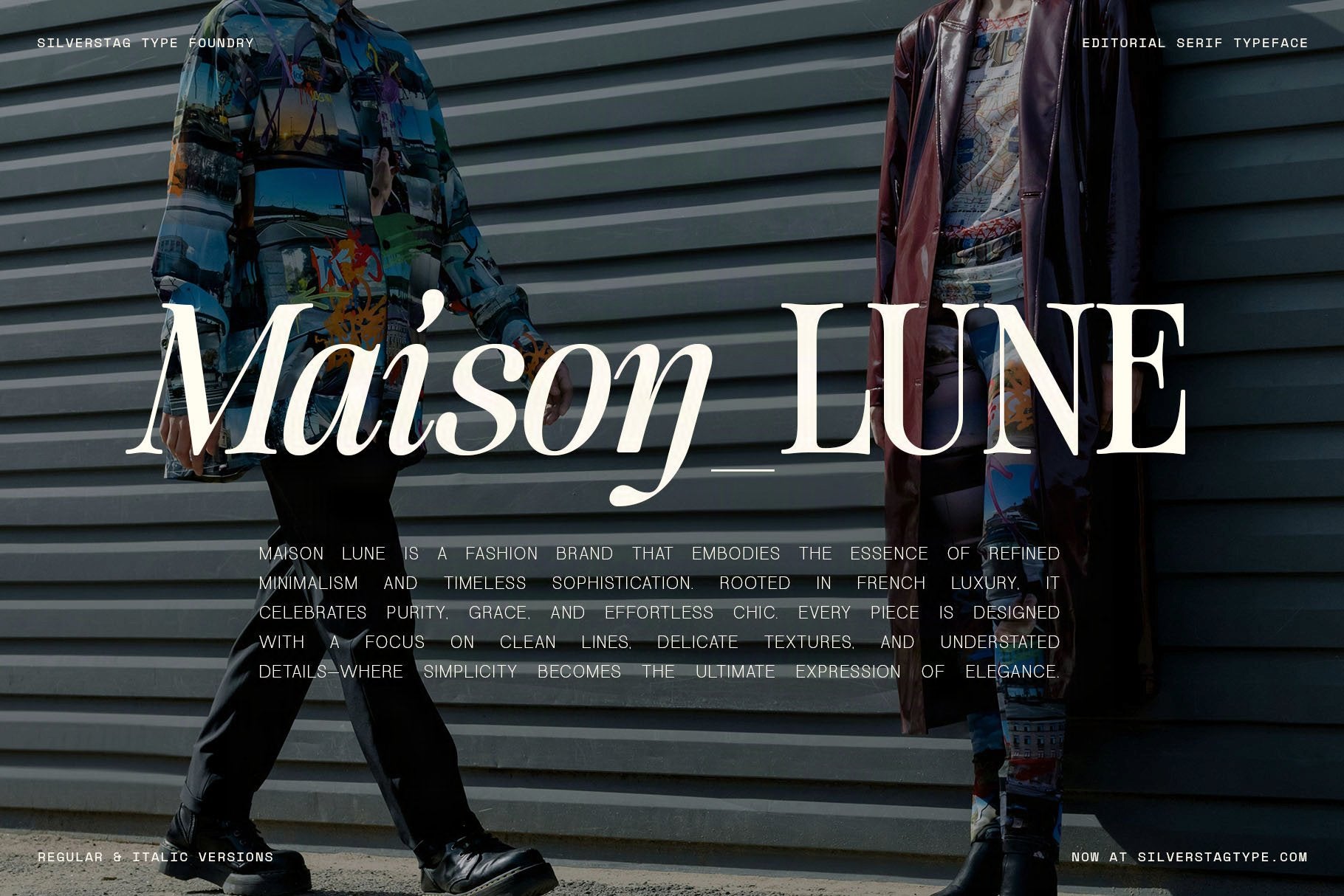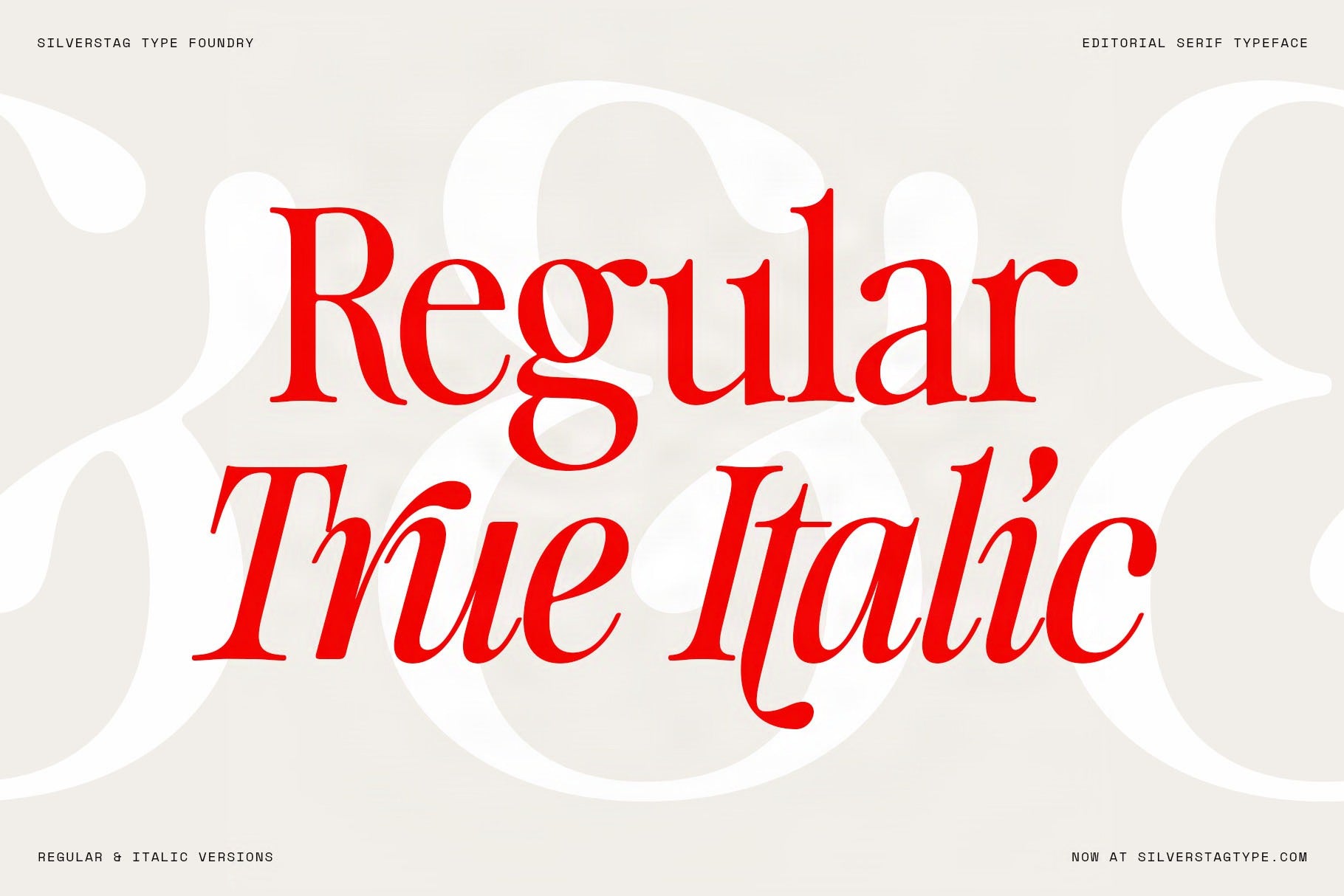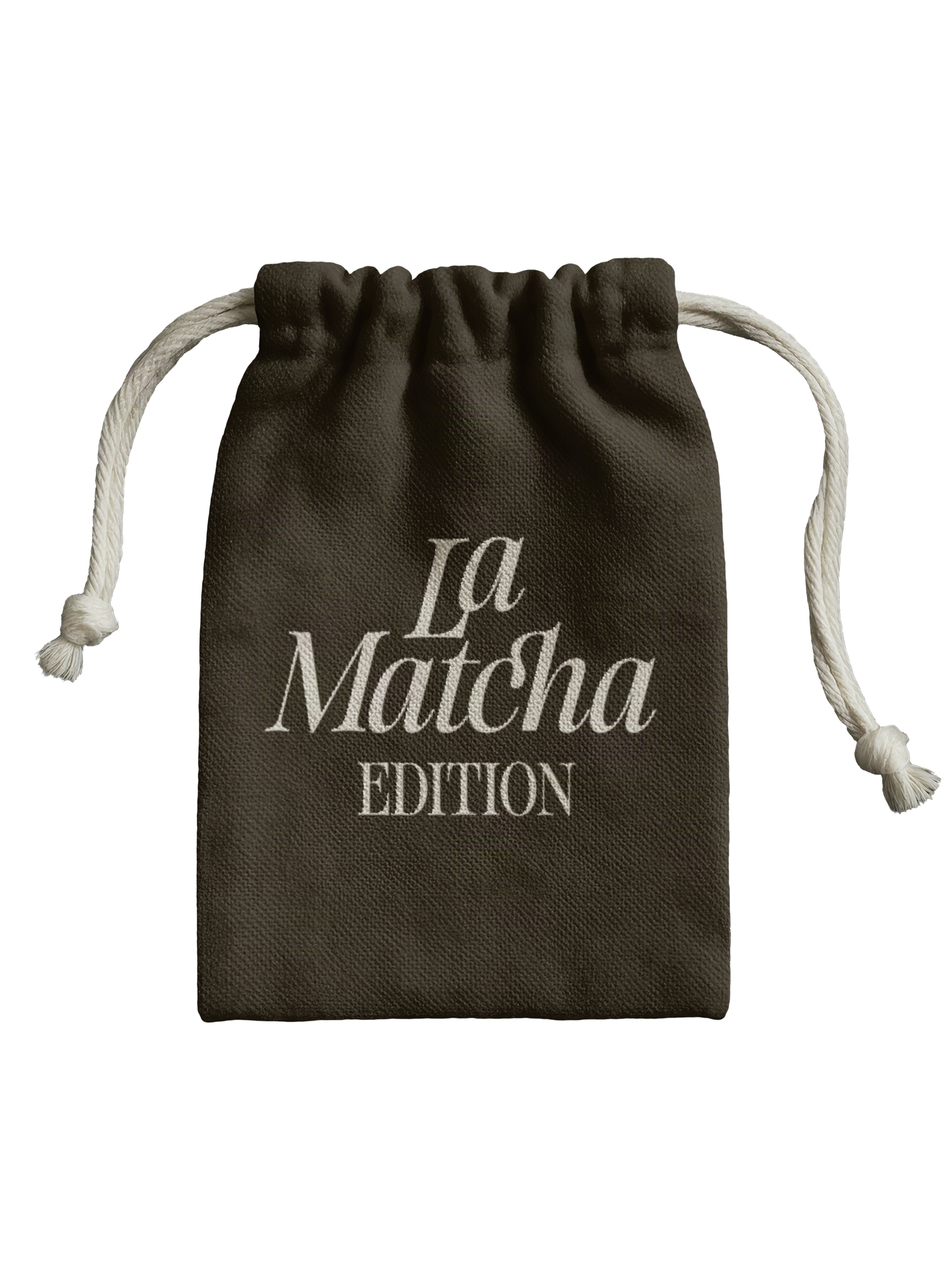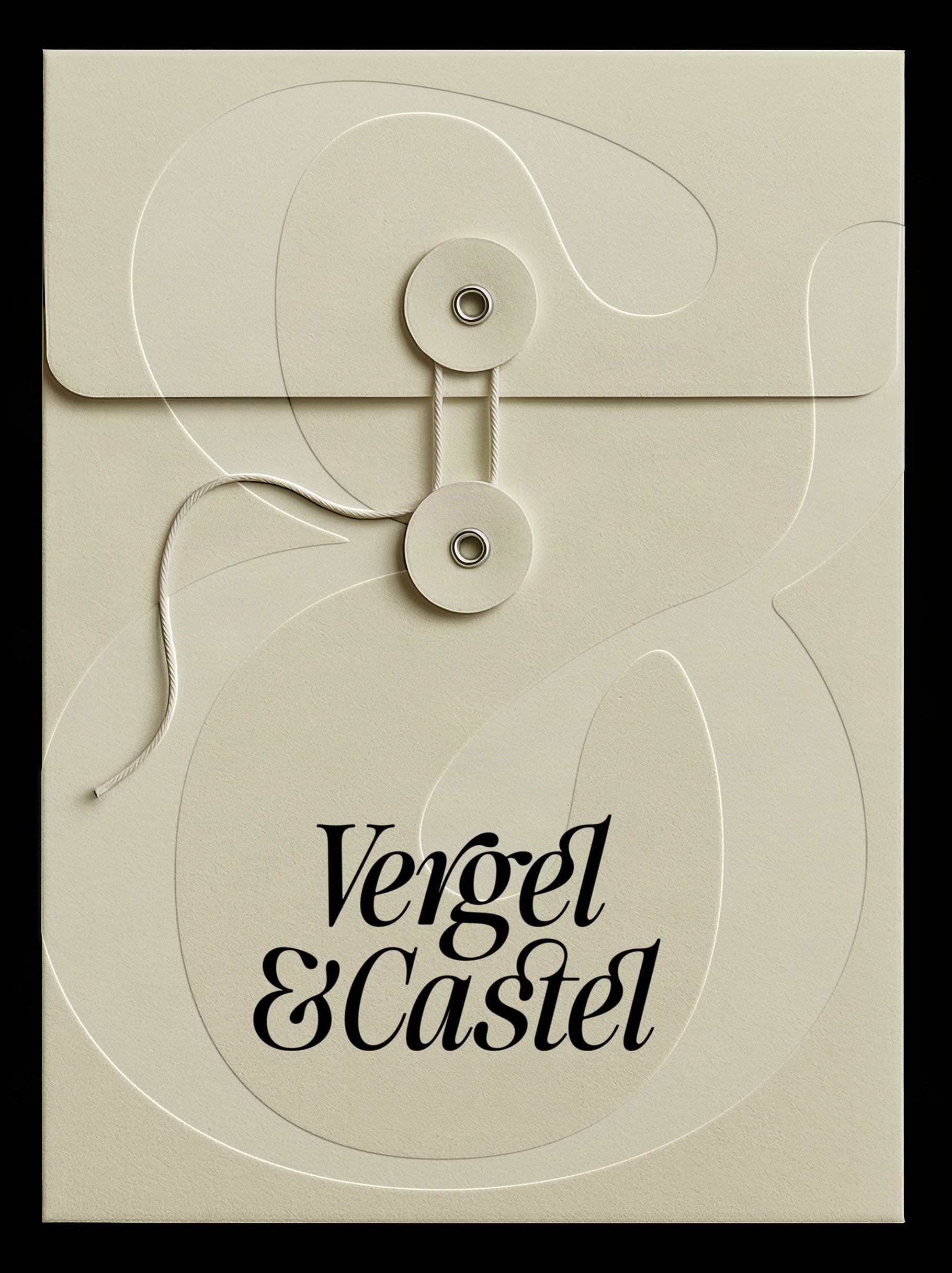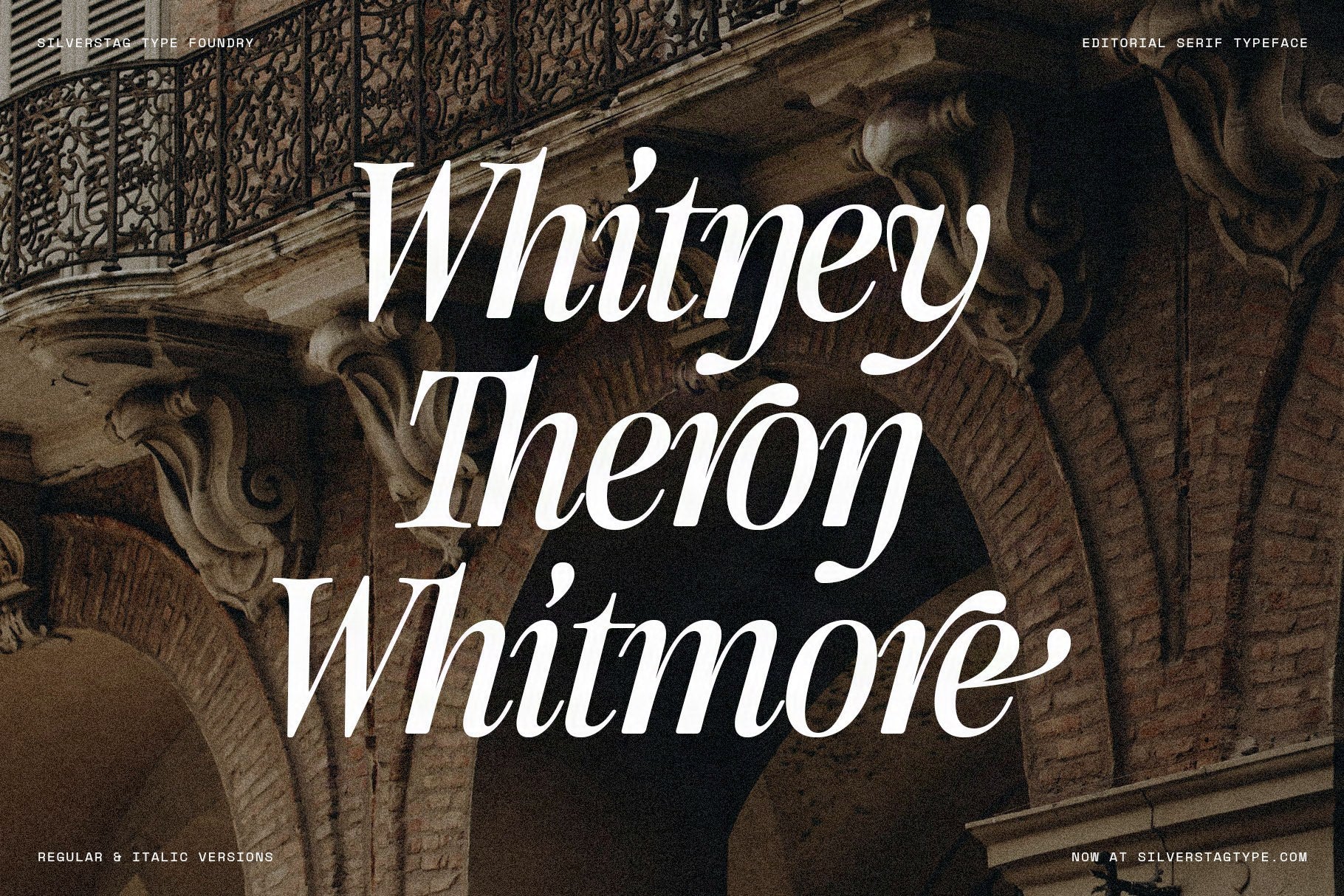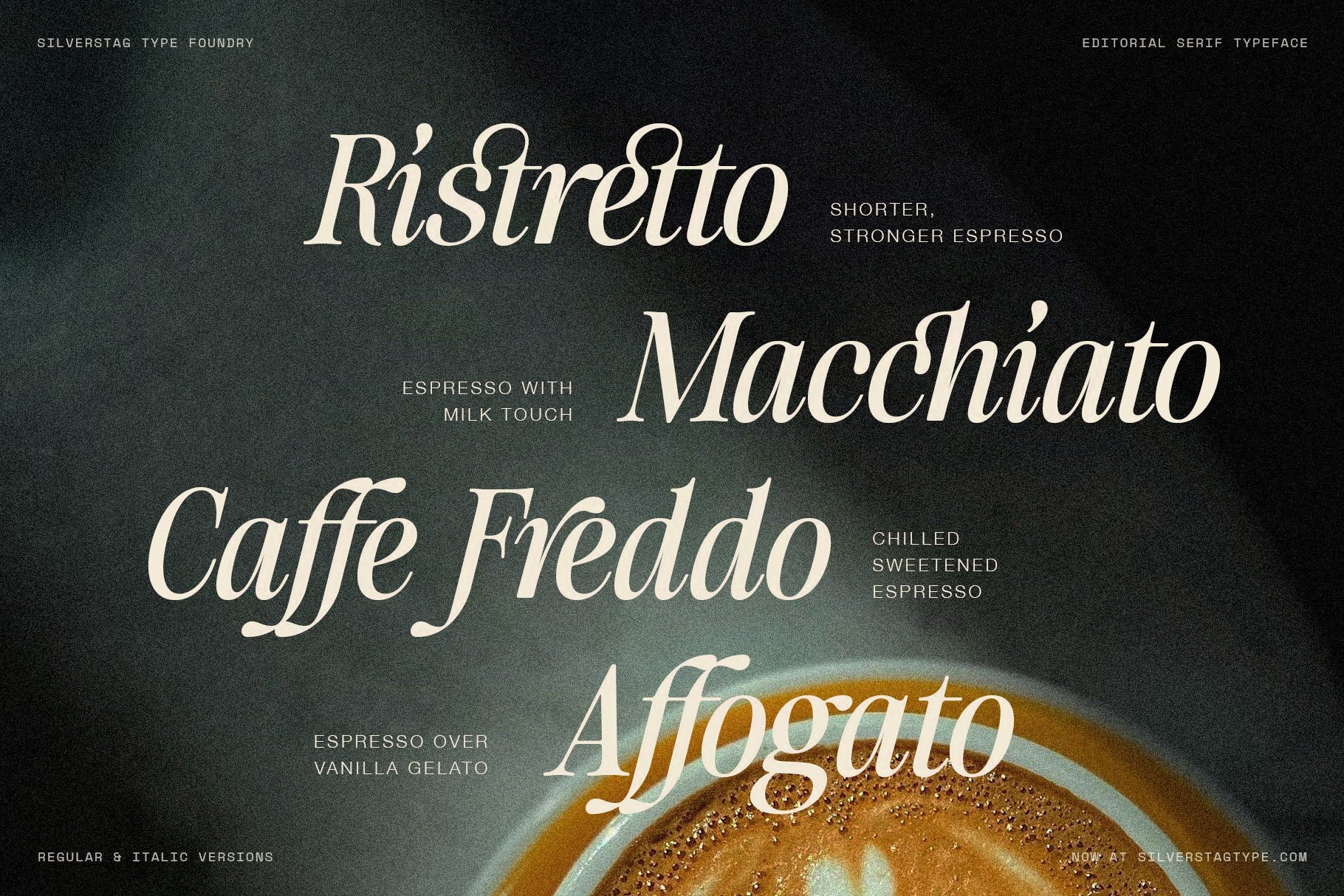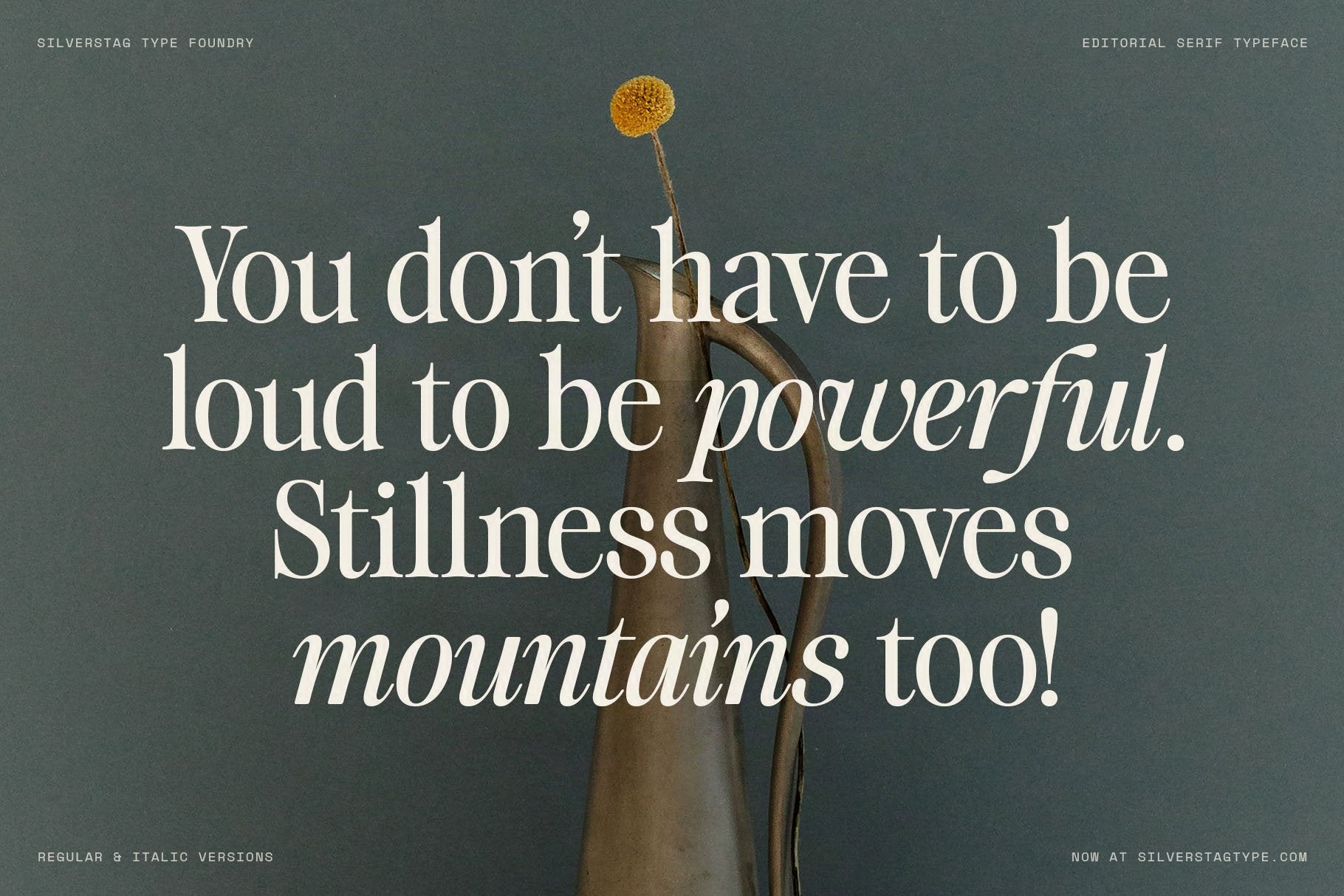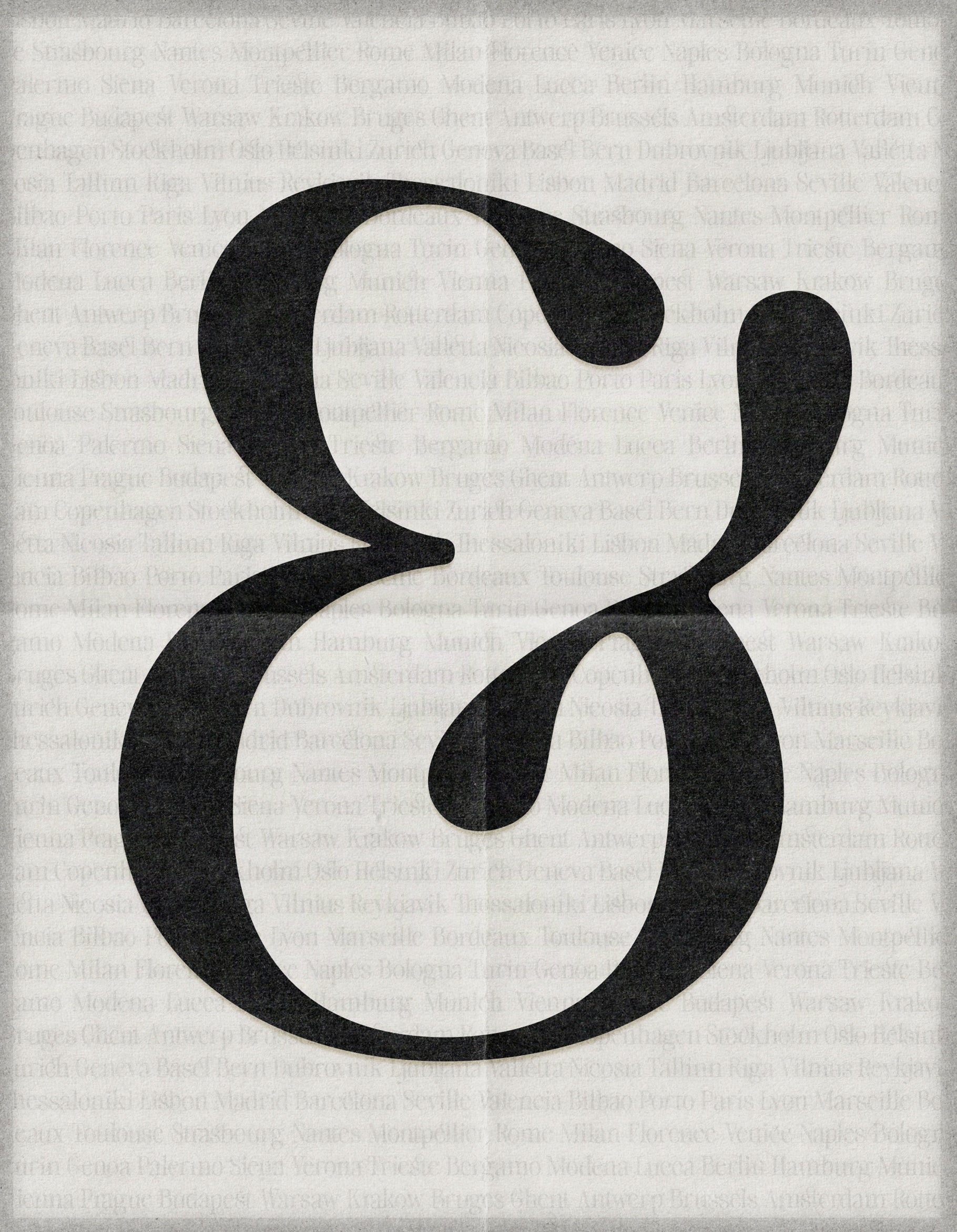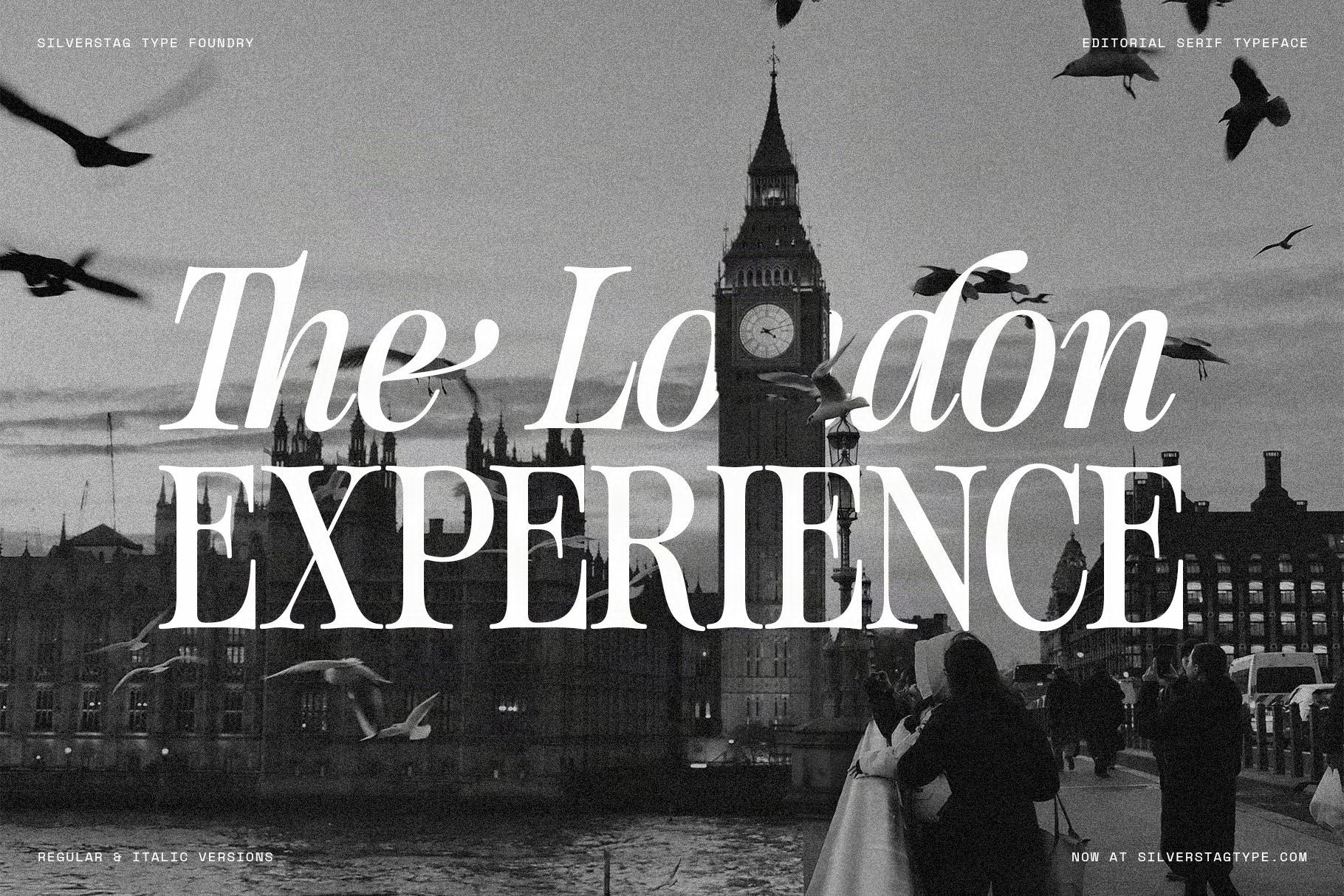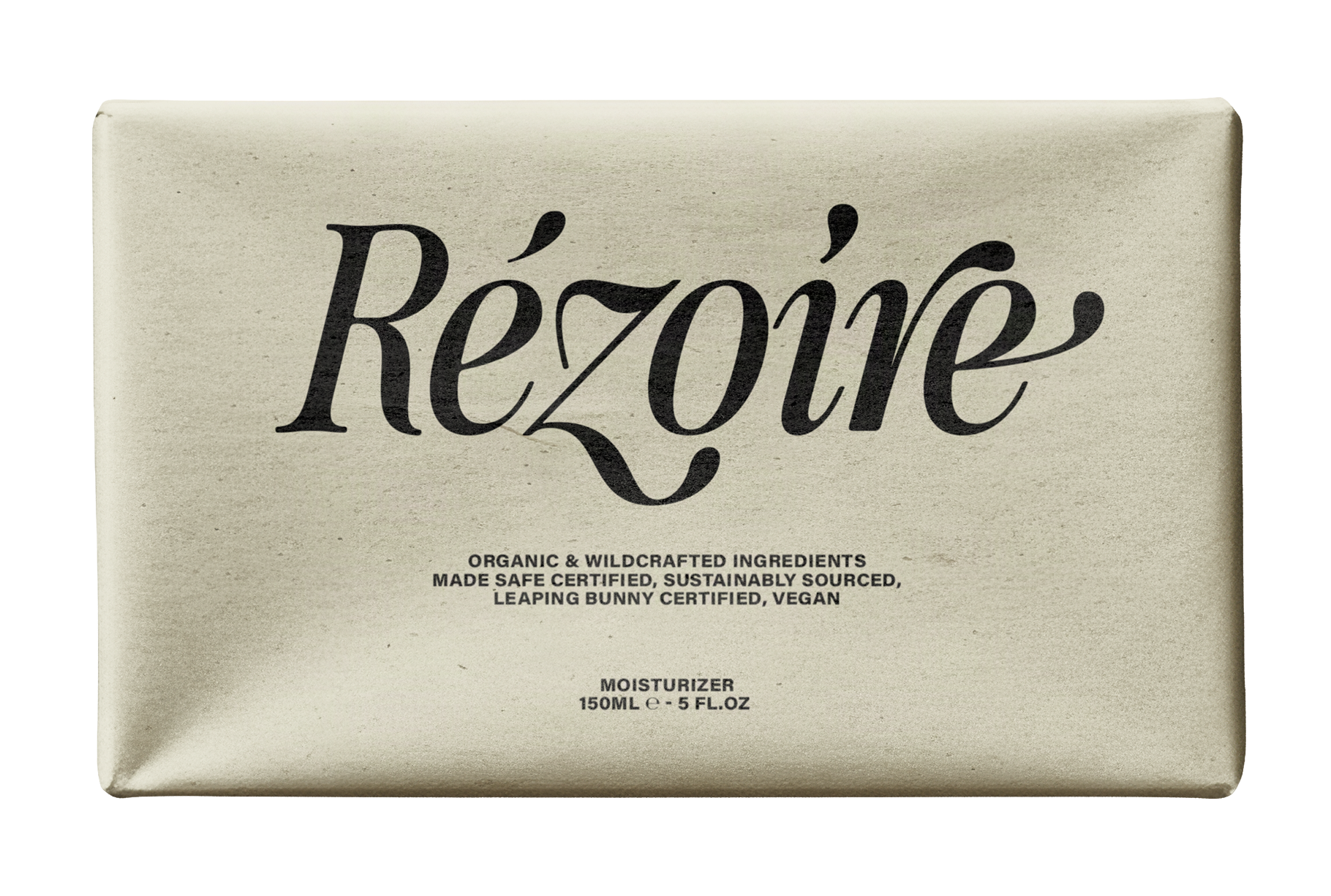
SLTF The Brachen is a calligraphic editorial serif in two cuts: a Regular and a True Italic. Not a slanted roman. A genuine italic — drawn separately, with calligraphic strokes, fluid connections, and letterforms that shift personality entirely when you lean them. The italic of The Brachen is where the typeface lives.
The Regular is composed and architectural. High contrast between thick strokes and hairline serifs. The kind of weight that anchors a masthead, commands a brand name, or holds the cover of a print publication. The True Italic is expressive and fluid — calligraphic in the fullest sense, with swash-quality letterforms in everyday positions. The two cuts are built to work together, alternating to create typographic tension, or to stand alone with equal conviction.
The ligatures are defining. The Brachen includes an extensive set — ffi, ffk, fi, fl, and more — each designed as a natural extension of the calligraphic stroke logic, not a decorative graft. Every connection follows the rhythm of the hand.
What it's built for: